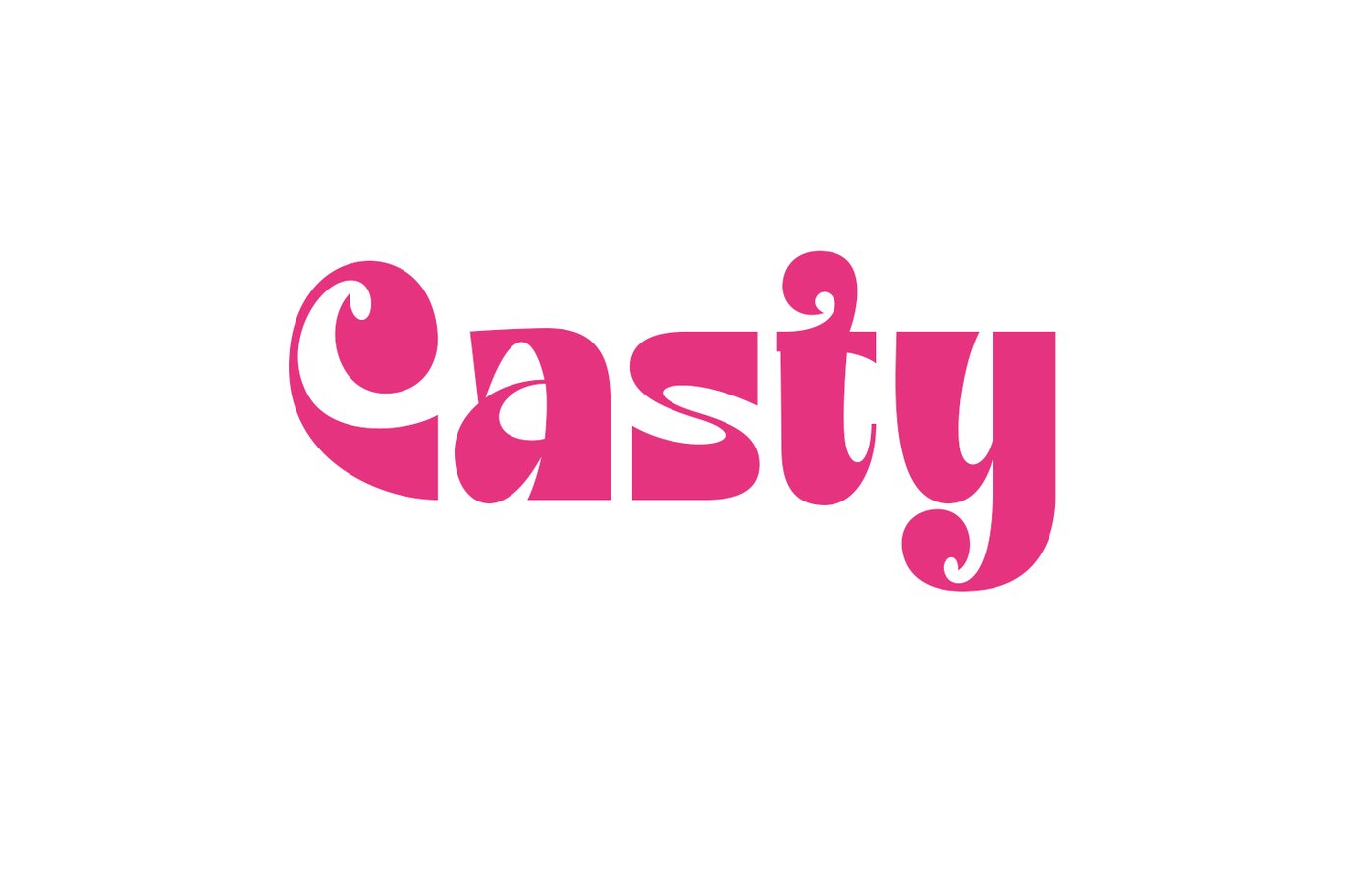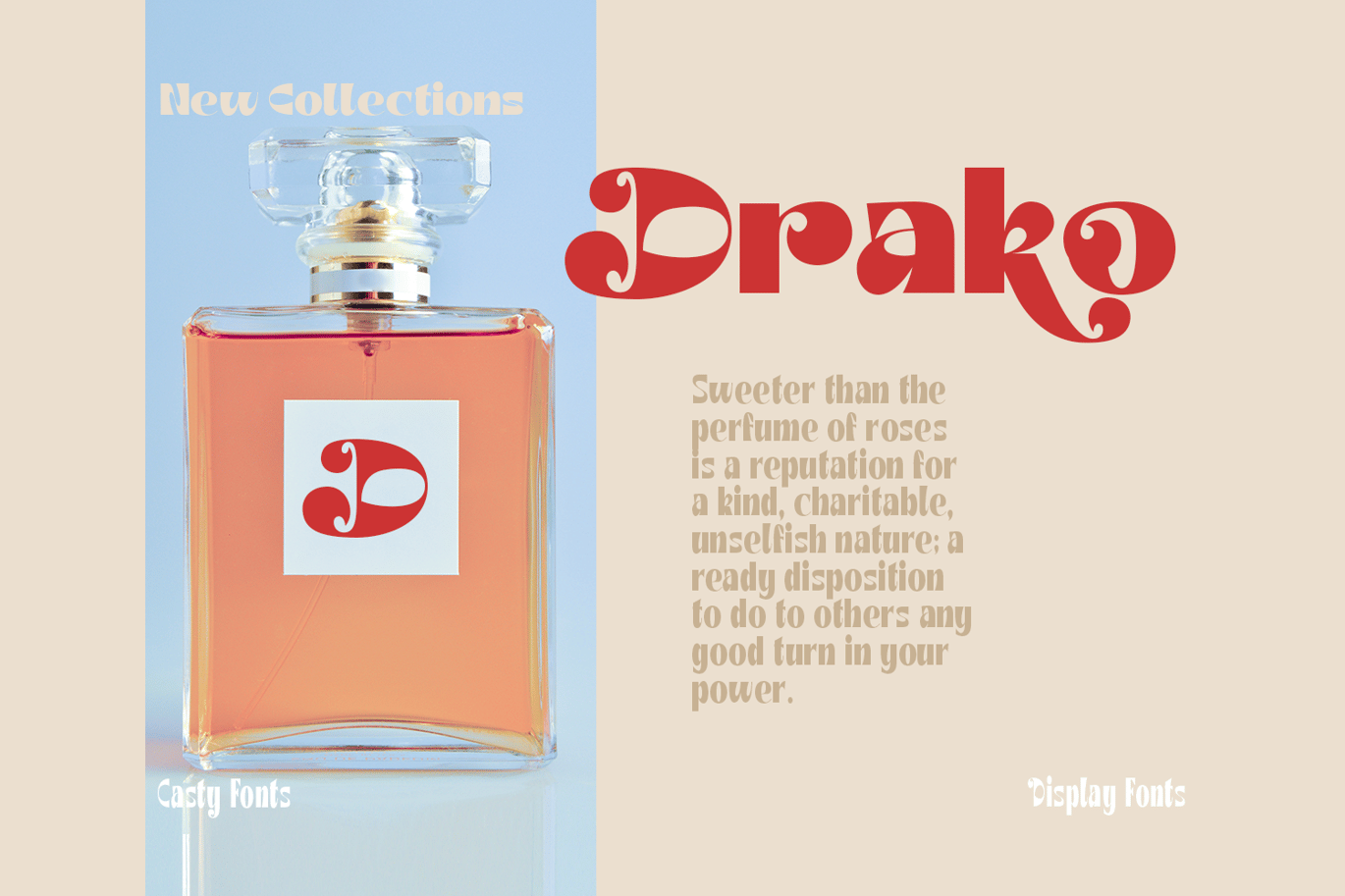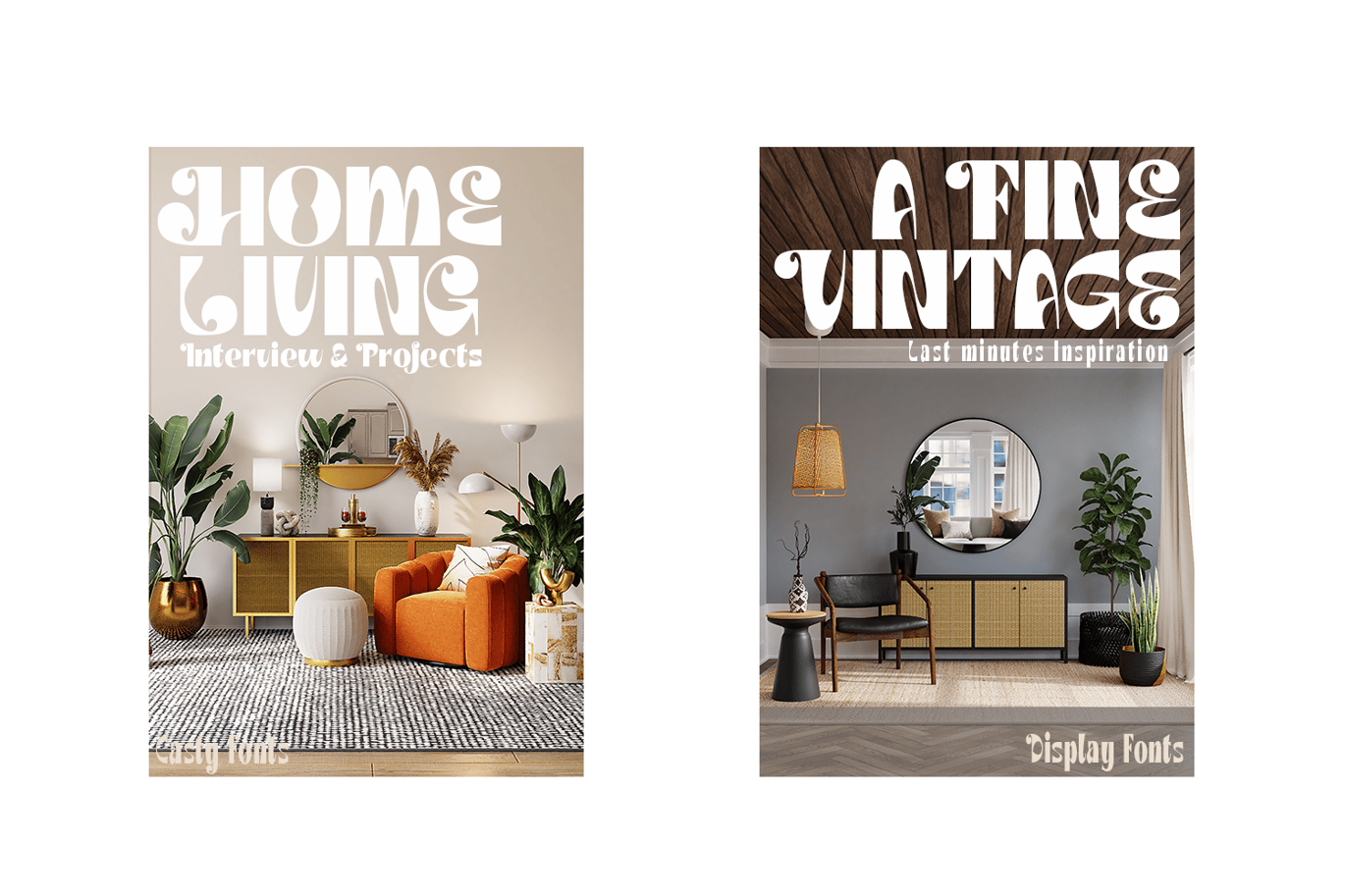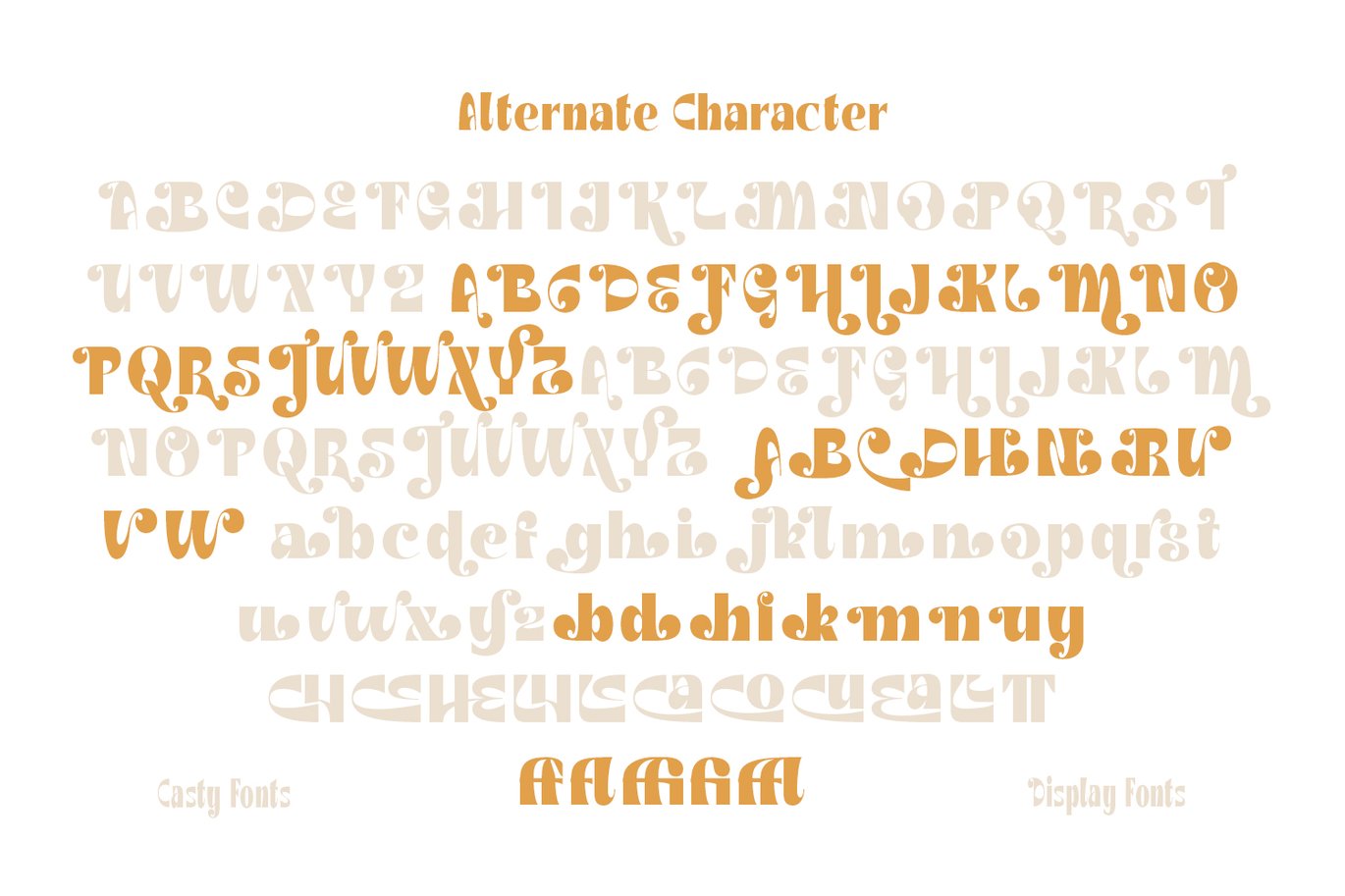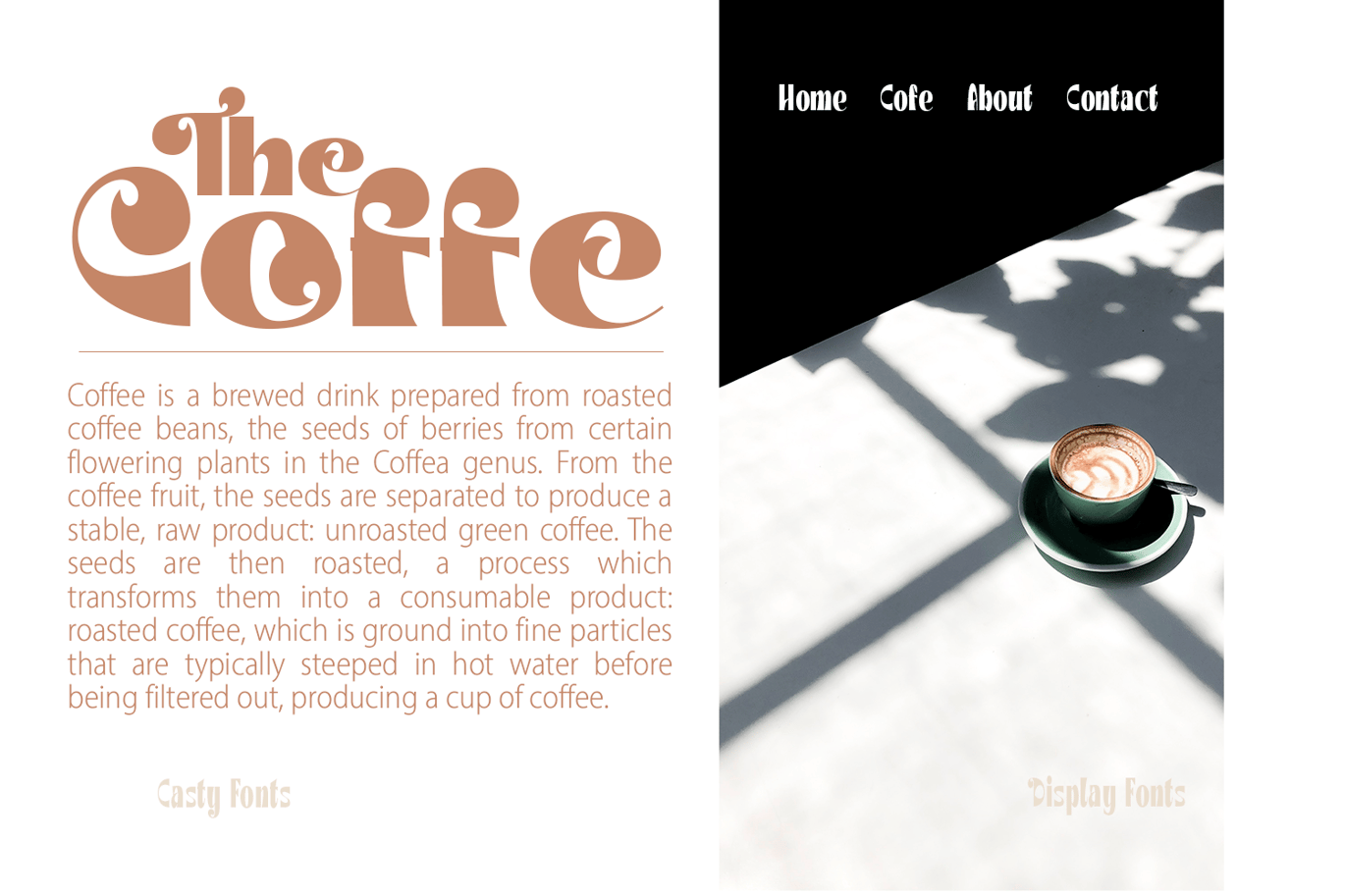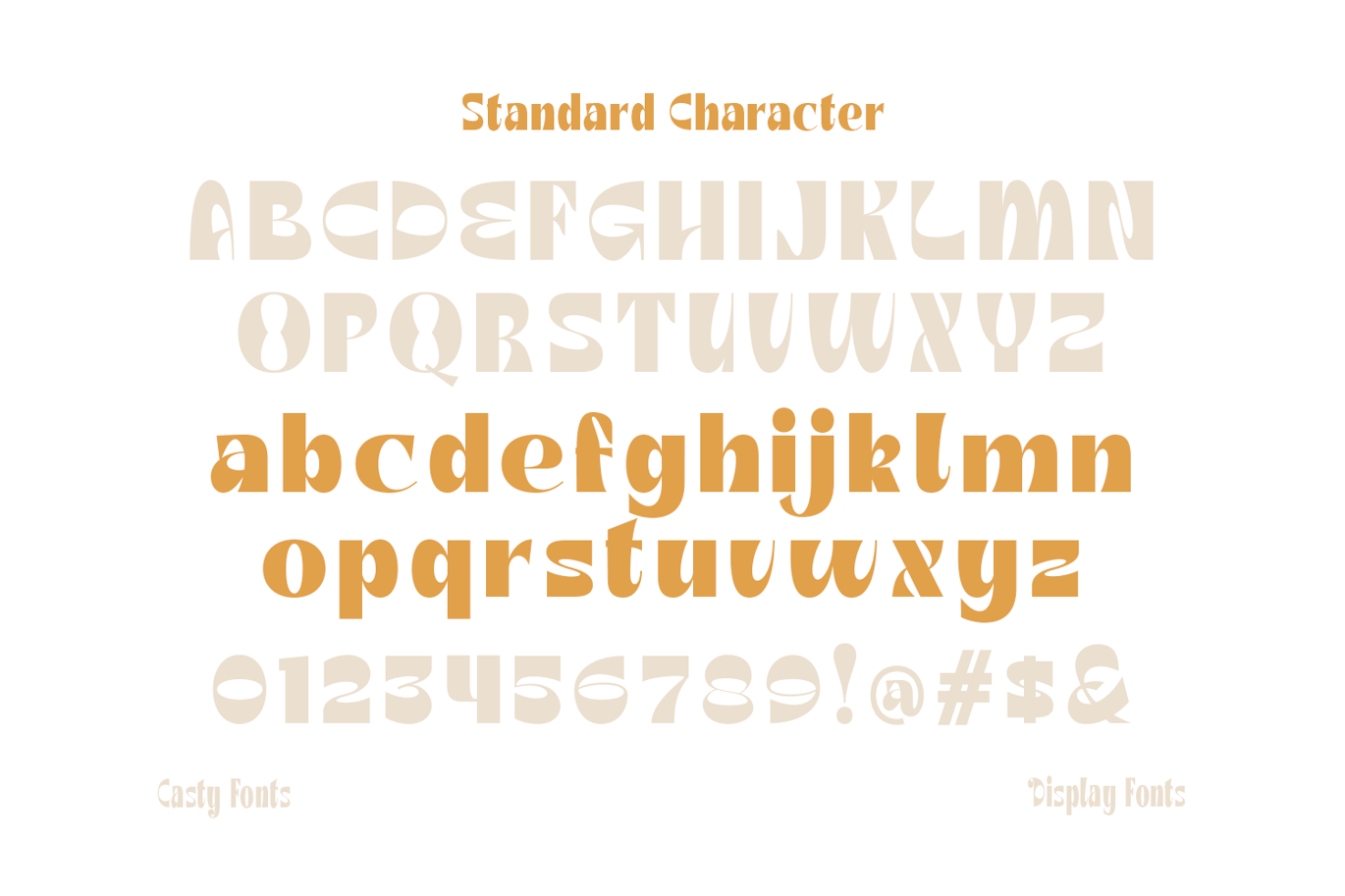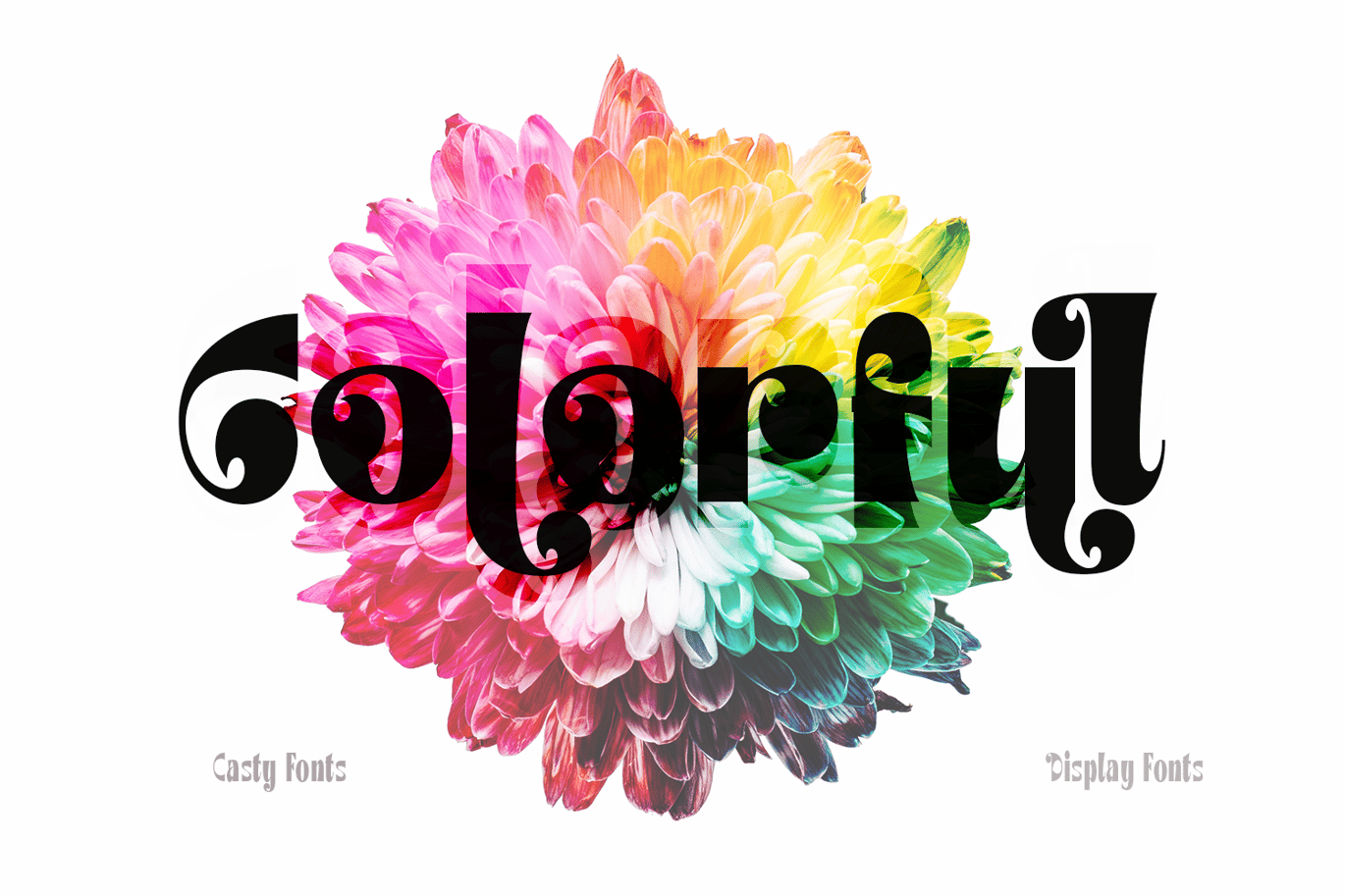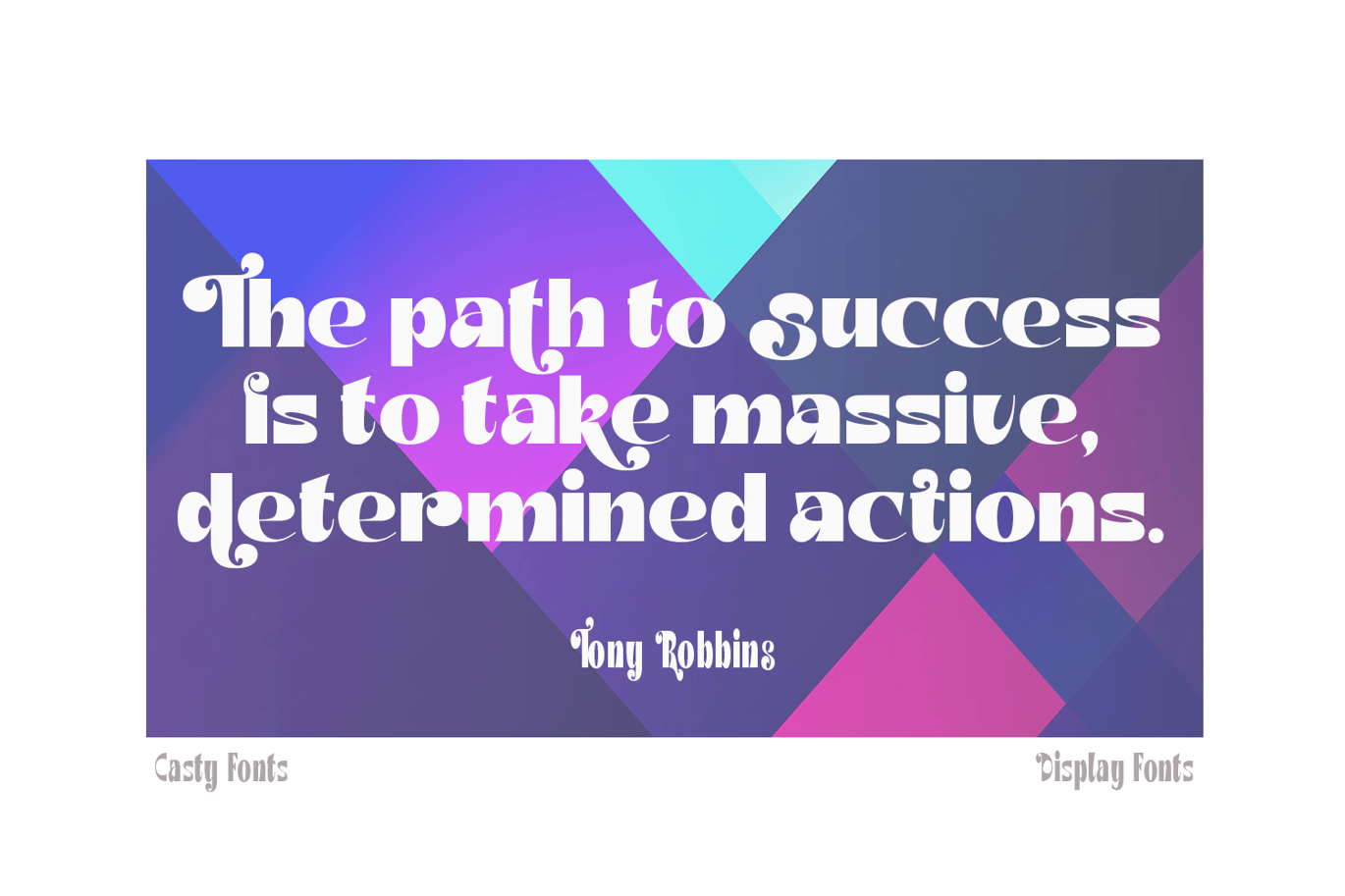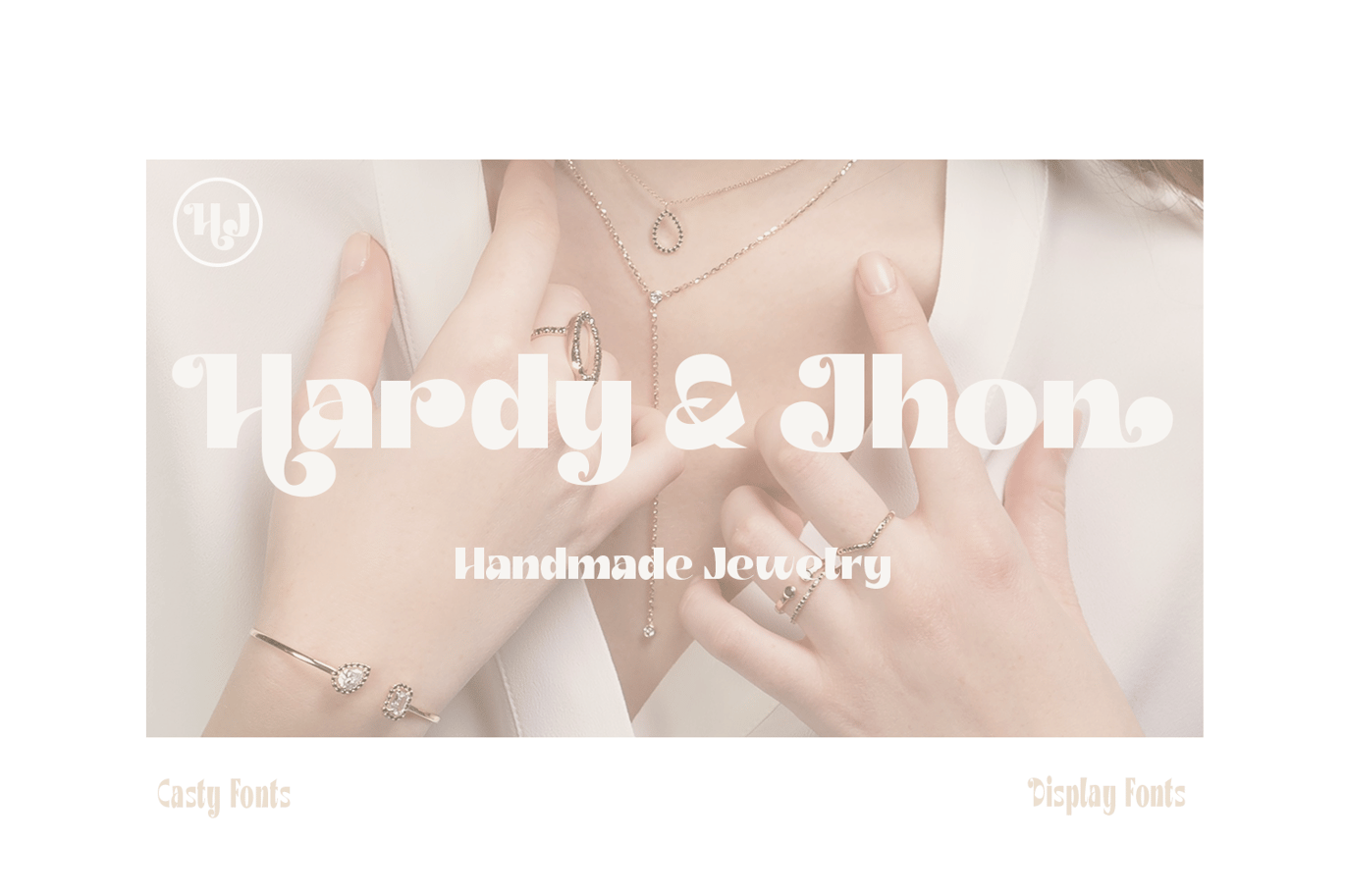
Casty – Groovy Font
Introducing Casty Groovy Font
Use this font for all your project design branding, product packaging, invitation, quotes, label, poster, logo etc.